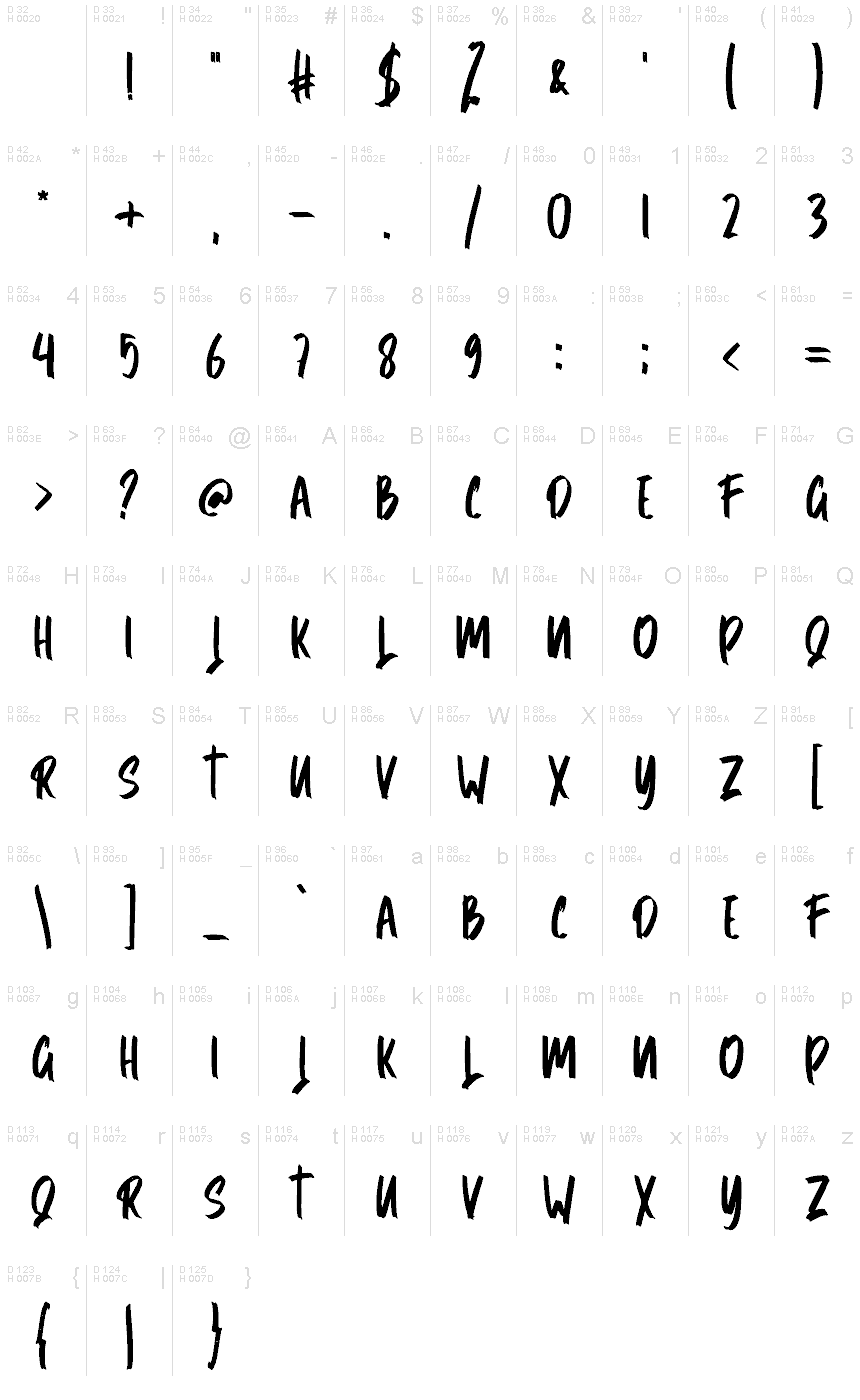
Bozeus
Bozeus font is a free brush font designed by Skiiller Studio that delivers an expressive, bold, and energetic appearance. Inspired by modern street art influences, its handwritten style perfectly combines artistry with readability. The condensed font equips users with the perfect solutions to get their work stand out thanks to the effortless charm this stunning tool brings to the table.
The natural nature of Bozeus makes it ideal for posters, social media designs, branding and marketing projects, signatures/logos, book covers or magazine headlines. Use it in stationery applications such as business cards or notebooks as well. The rugged yet sophisticated font fits clothing branding since it’s fashionable and high on readability.